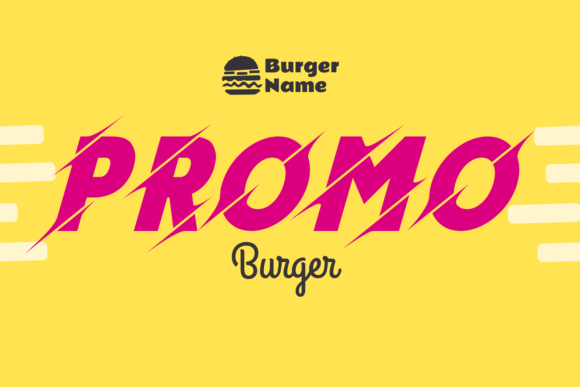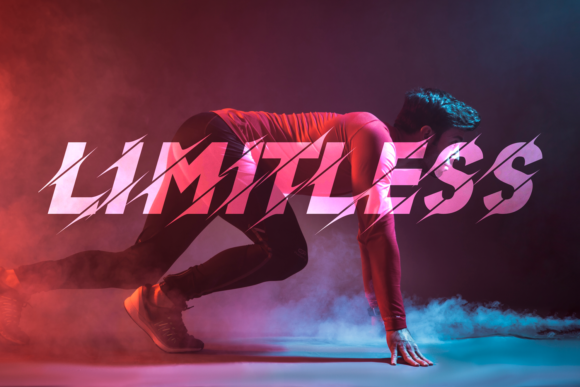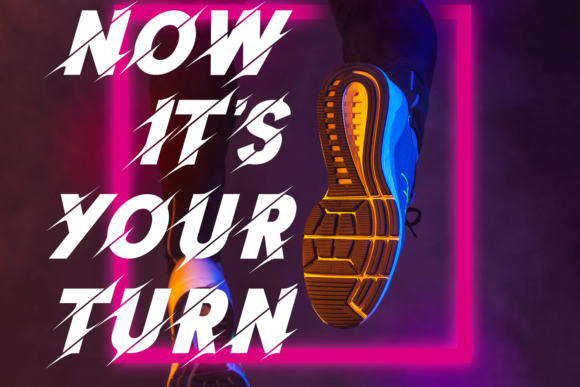
Introduction to Giver Made Font
Giver Made is a cool, bold and sporty display font.
It will elevate a wide range of crafting ideas, from cards, to branding, labels and much more Add it confidently to your favorite creations and let yourself be amazed by the outcome generated.
Giver Made Font offers exceptional quality and versatility, making it a valuable addition to your design toolkit. Whether you’re creating for personal projects or commercial use, Giver Made Font delivers professional results.